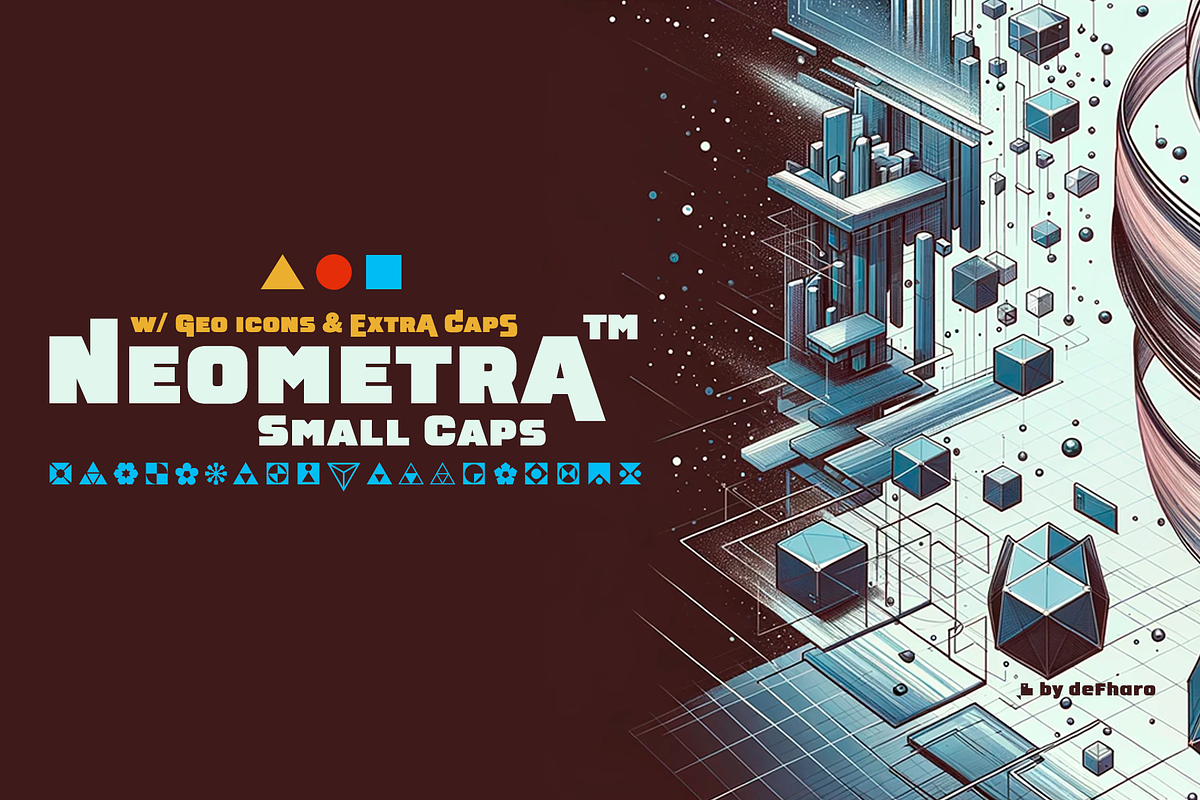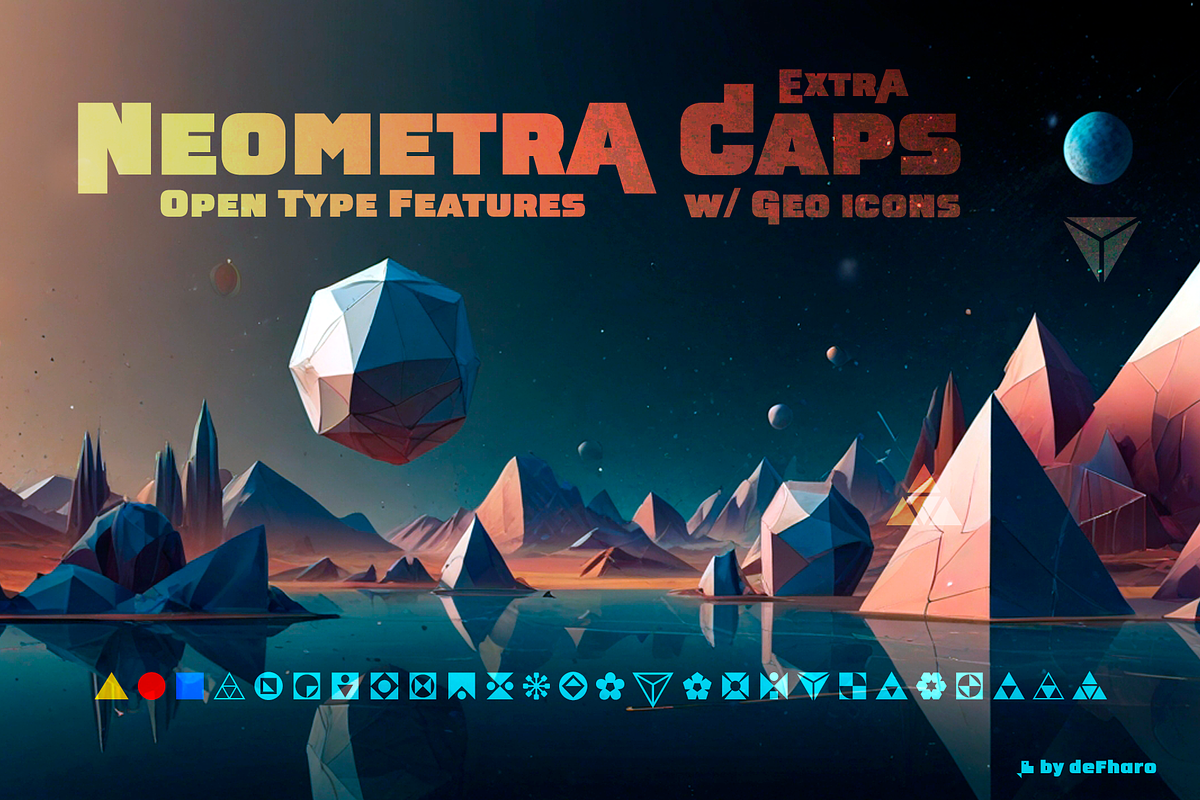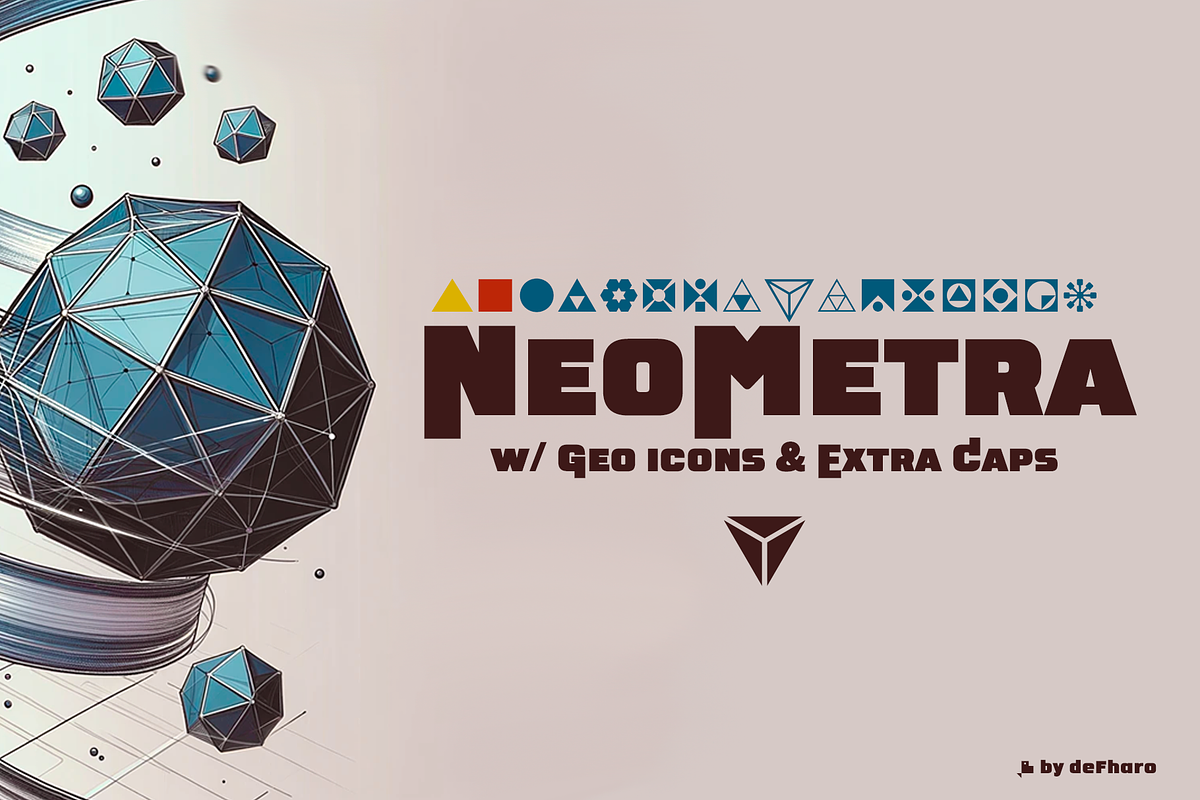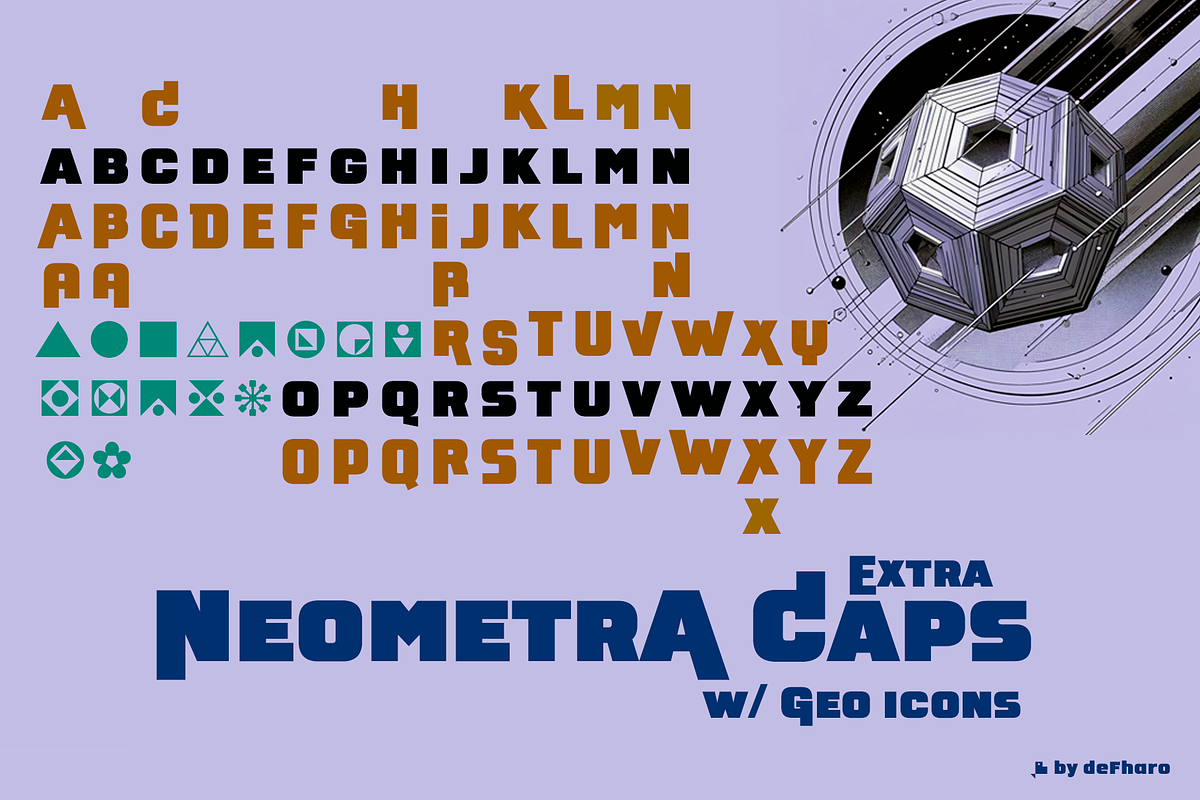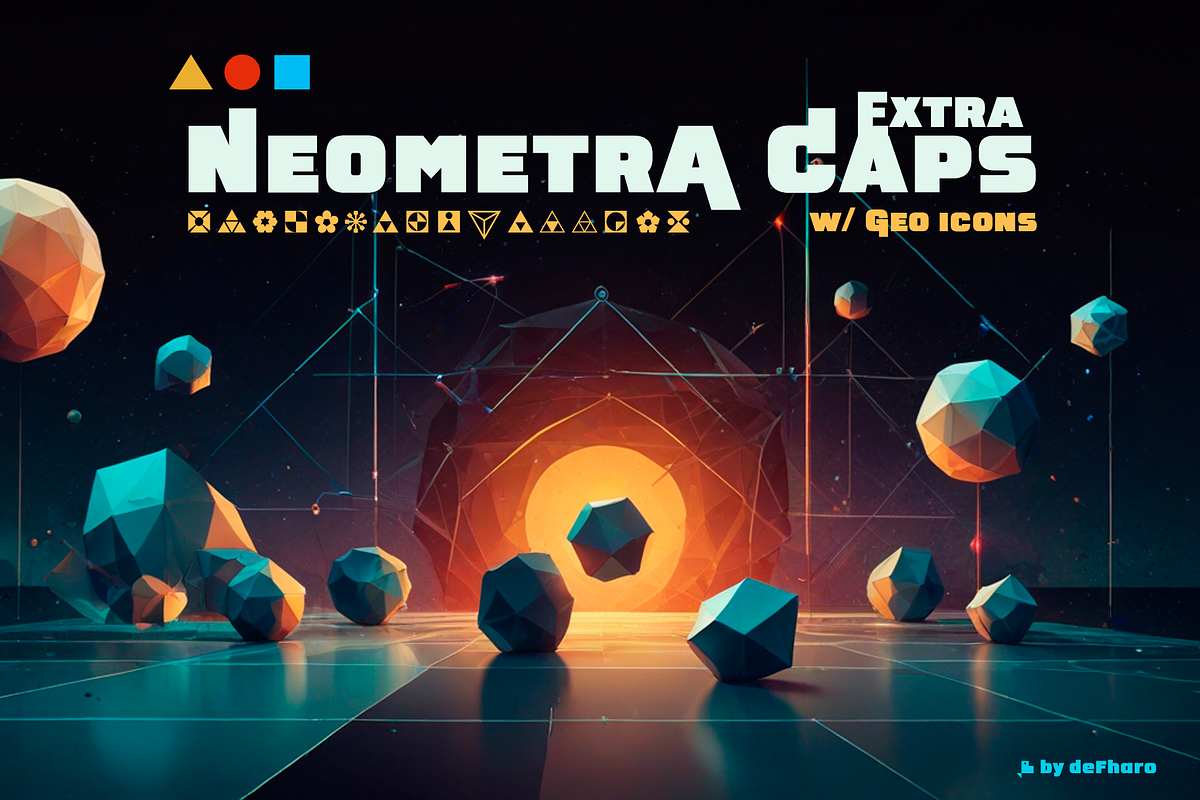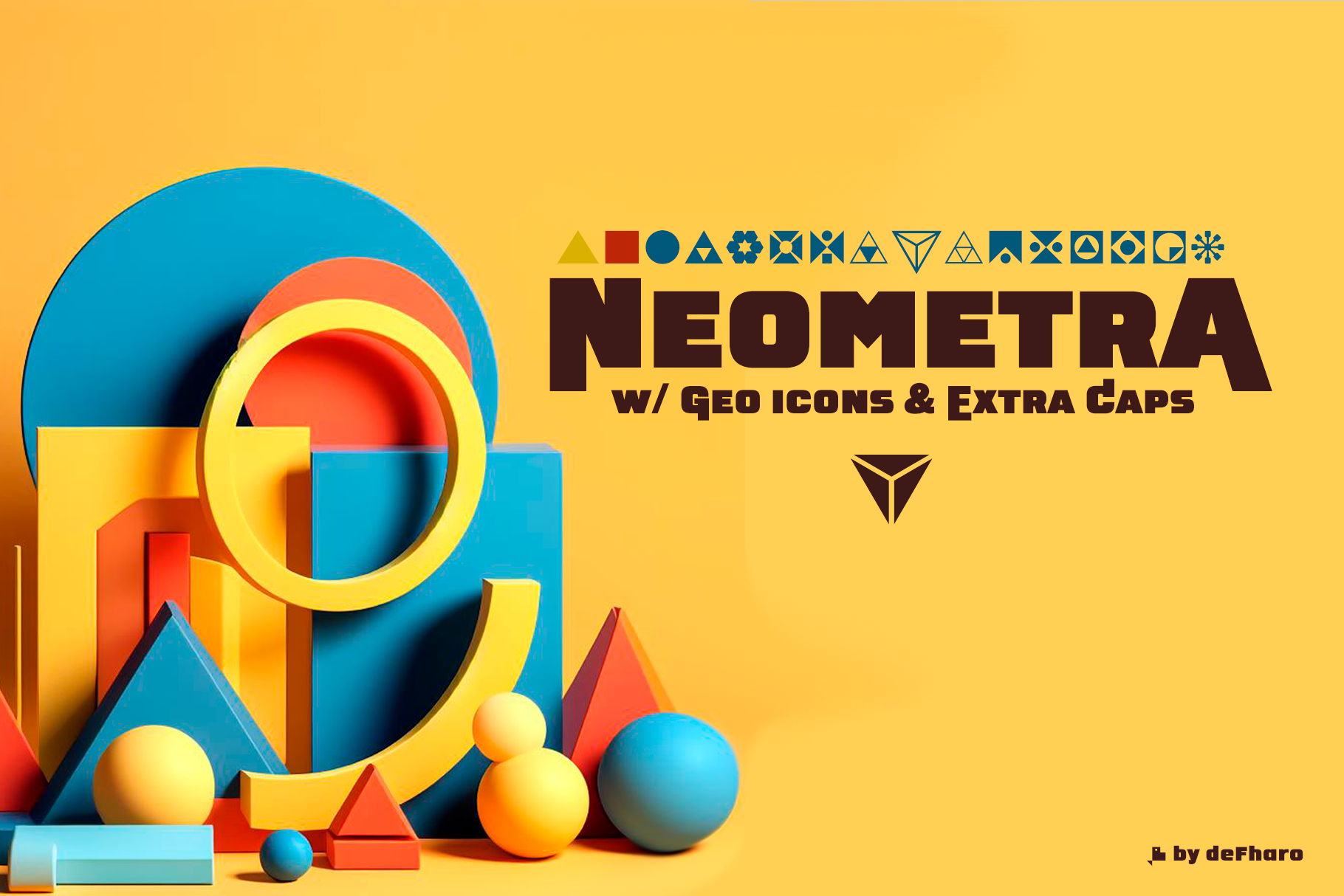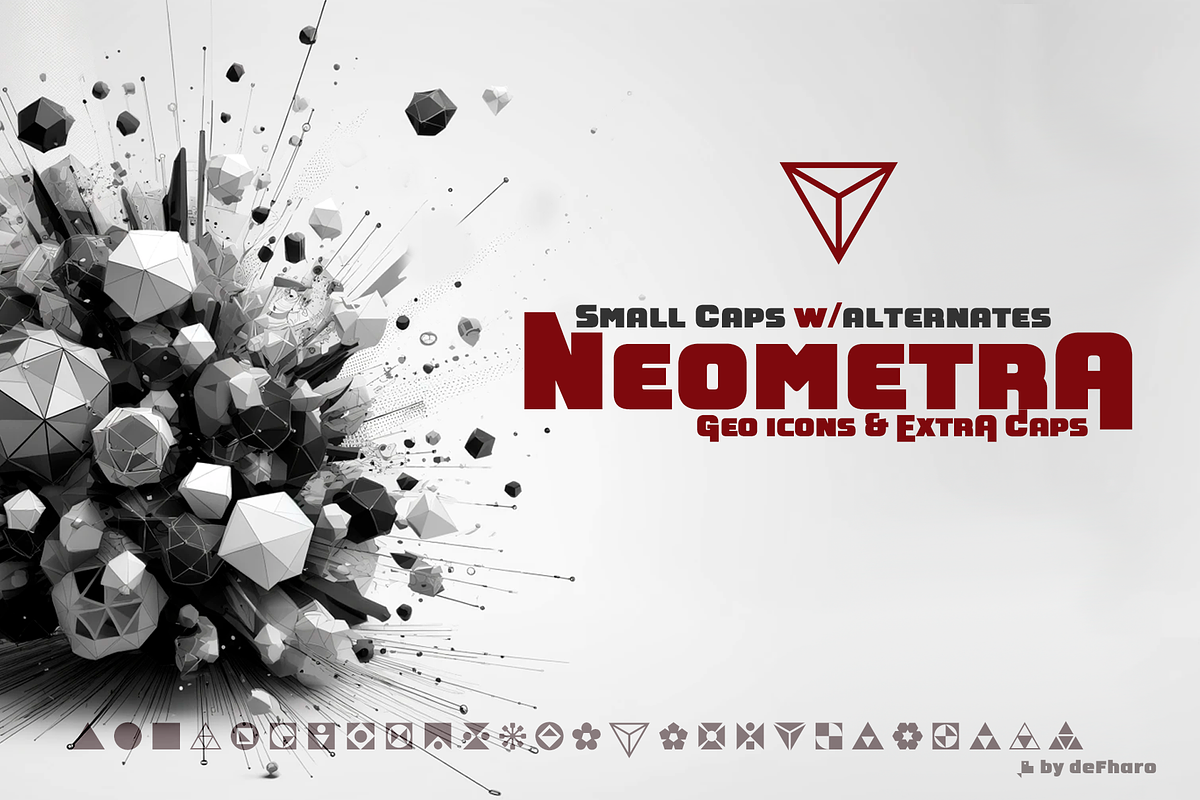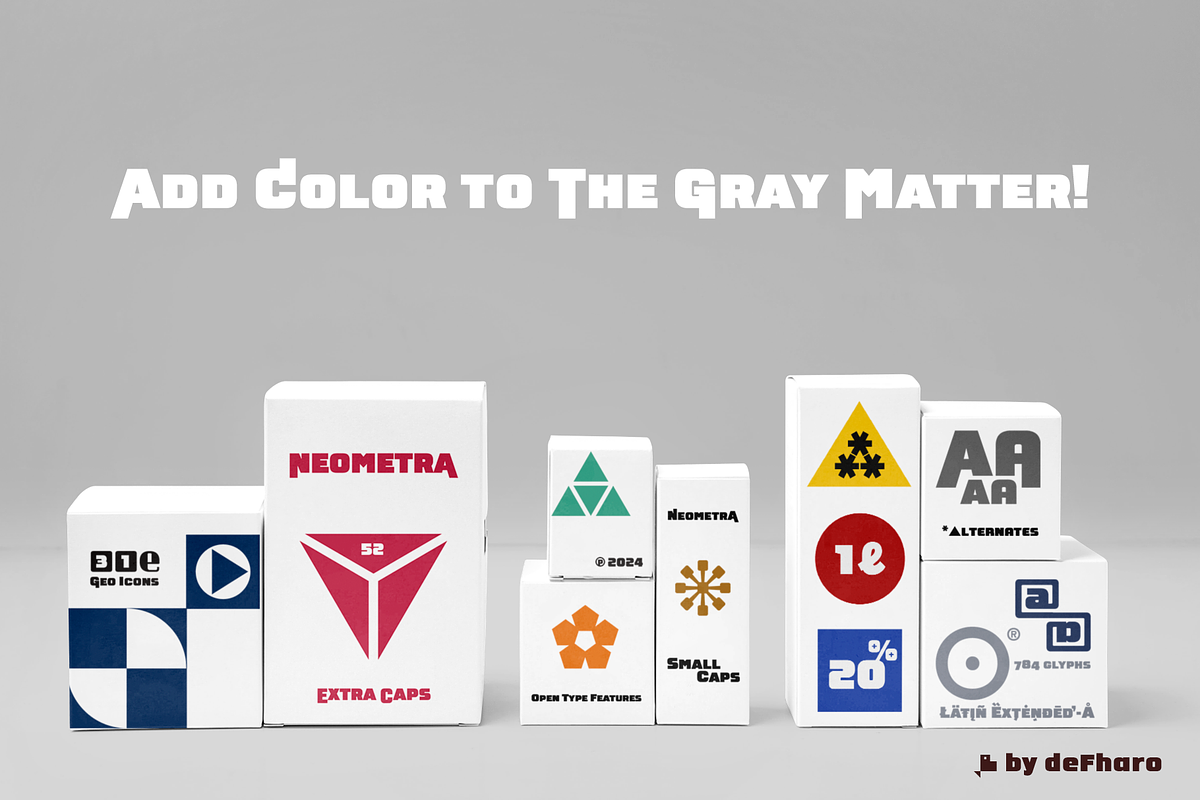
Neometra Caps Display Font
Neometra Caps a new sans serif display font, extremely thick and square in proportion, designed to stand out in any graphic project.
With 784 glyphs, 31 geometric icons, 52 alternative capitals, multiple sets of numbers, and advanced Open Type features, Neometra Caps ensures superior readability and distinctive style, ideal for unique titles, logos, packaging, and more.
Neometra Caps font includes the symbol of Bitcoin and currency symbols.
OpenType Features: Additional languages, All Alternates, Alternate Annotation Forms, Capital Spacing, Contextual Alternates, Denominators, Discretionary Ligatures, Fractions, Historical Forms, Inferiors, Initial Forms, Kerning, Localized Forms, Numerators, Oldstyle Figures, Ordinals, Scientific Inferiors, Slashed Zero, Small Capitals, Small Capitals From Capitals, Standard Ligatures, Stylistic Set, Subscript, Superior letters, Superiors, Superscript, Terminal Forms, Titling alternates.